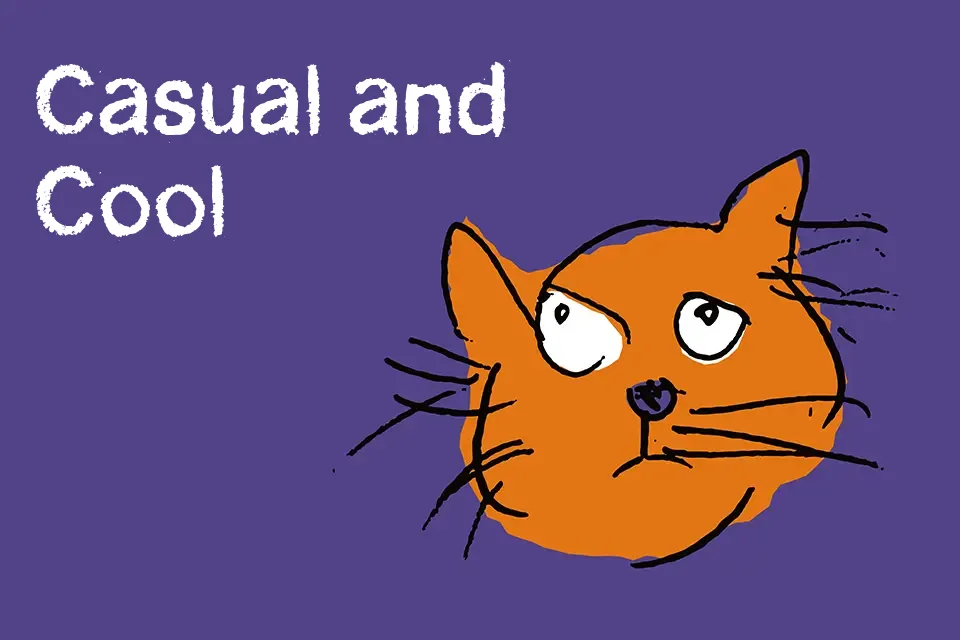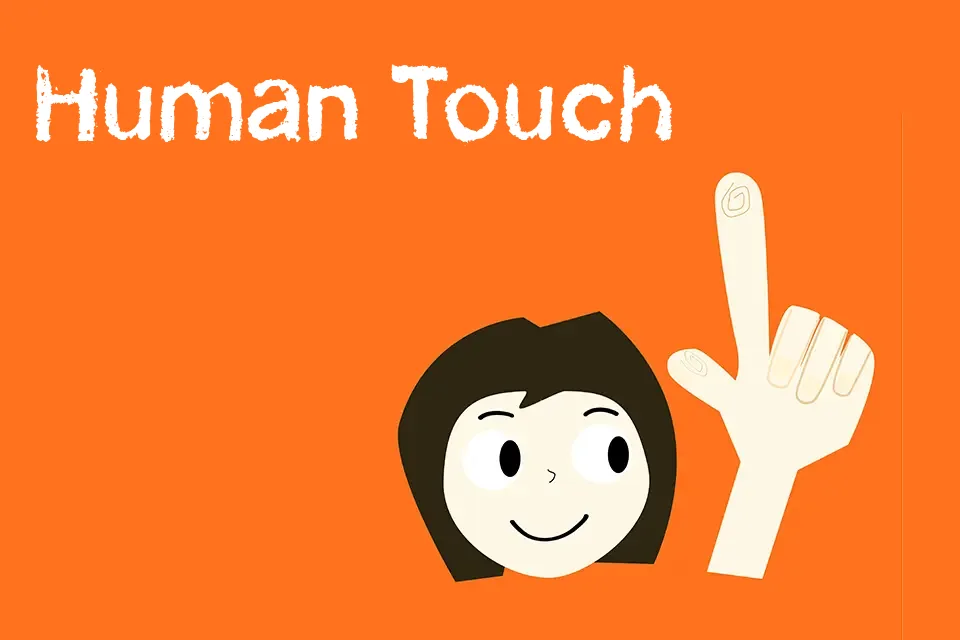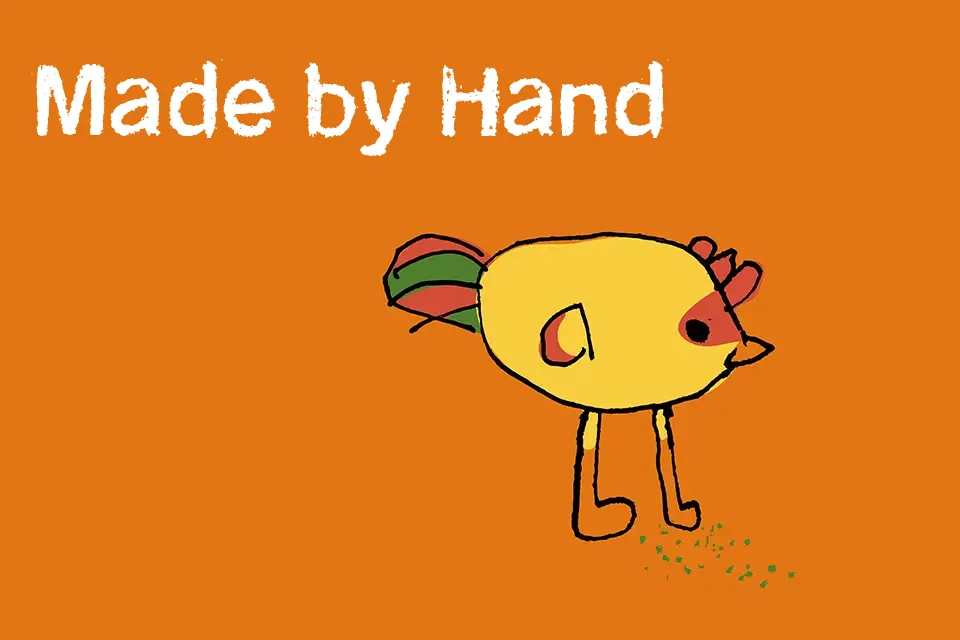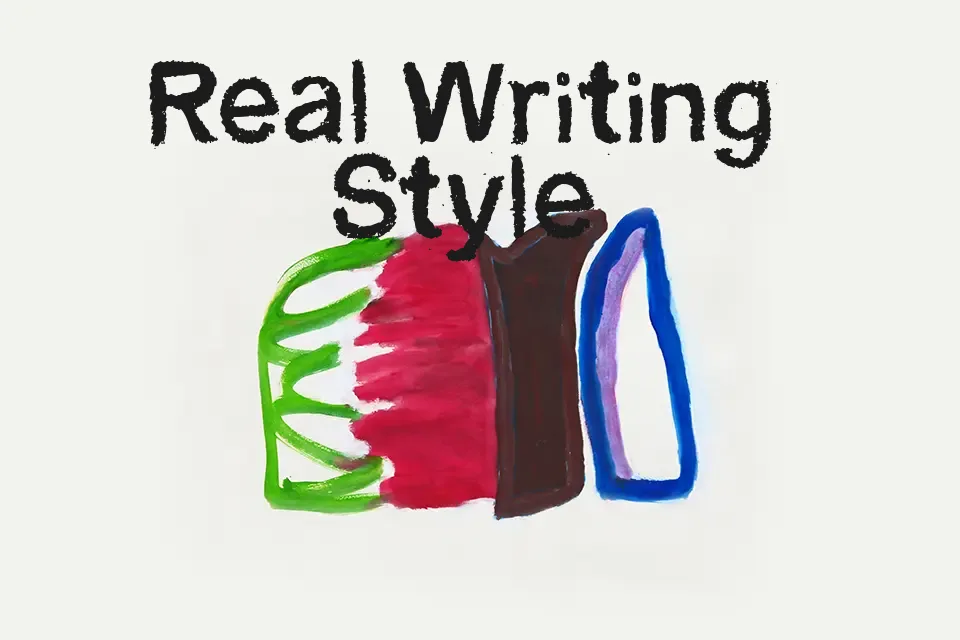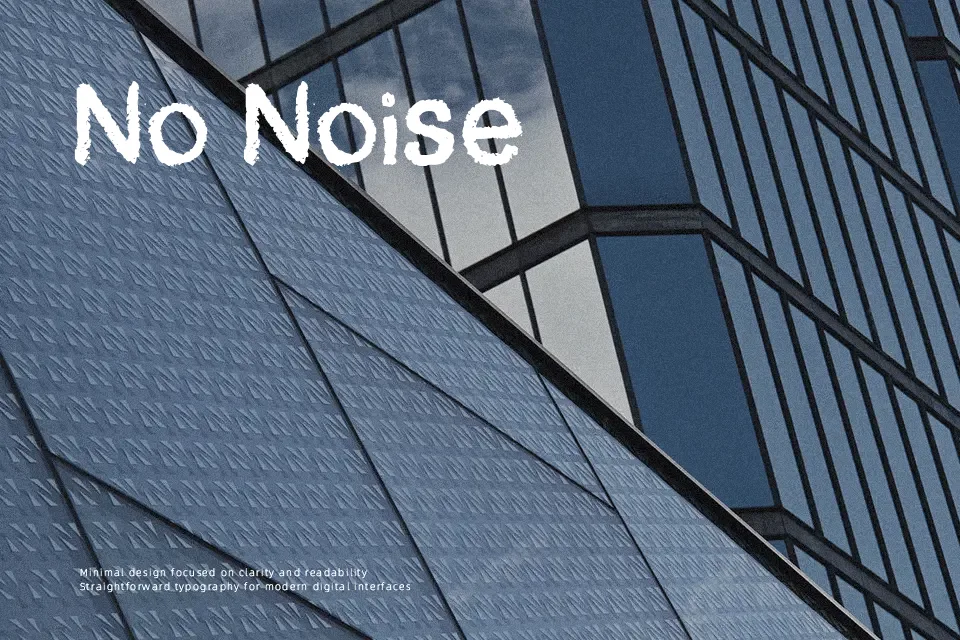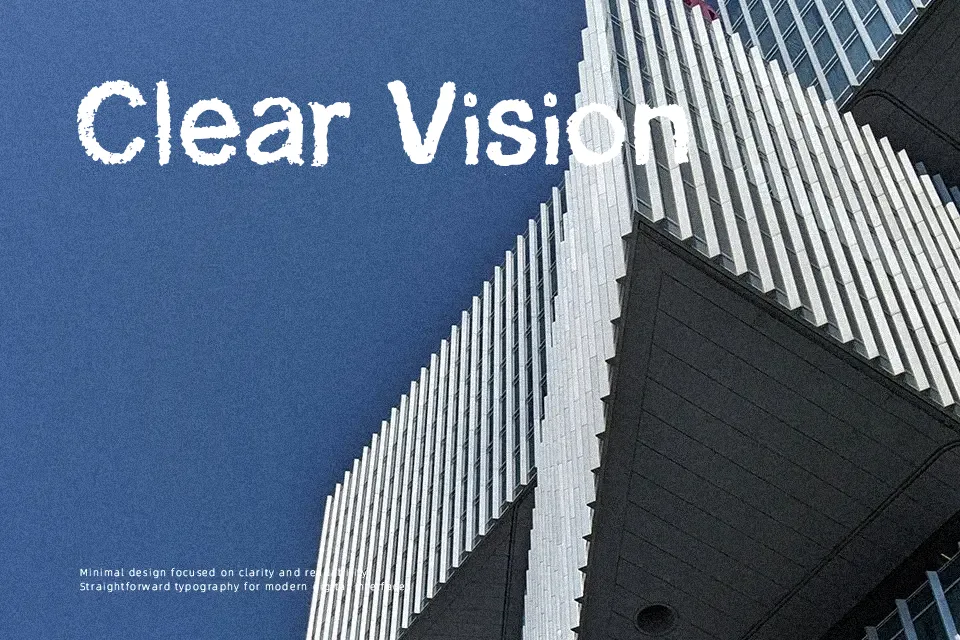
CF Blackboard Font
Defined by rough edges and granular stroke textures, CF Blackboard Font captures the tactile look of hand-drawn chalk on a dusty board. The letterforms feature uneven weight distributions and subtly varied proportions that reinforce a spontaneous, non-mechanical appearance. Spacing between characters remains relatively balanced across uppercase and lowercase sets, preserving letter separation at medium display heights. The design functions reliably for cafe menu headers, school festival flyers, and casual retail promotions where bold personality is paramount. However, the eroded edges degrade quickly at small point sizes, making continuous body paragraphs difficult to read. The powdery texture creates noticeable visual charm when magnified.
Best For: coffee shop menu boards, educational poster titles, rustic food packaging, casual event flyers
Not Ideal For: long paragraph text, mobile interface labels, dense technical documentation, small legal disclaimers
Perfect for headline, kids, and packaging, with a artistic and decorative style.